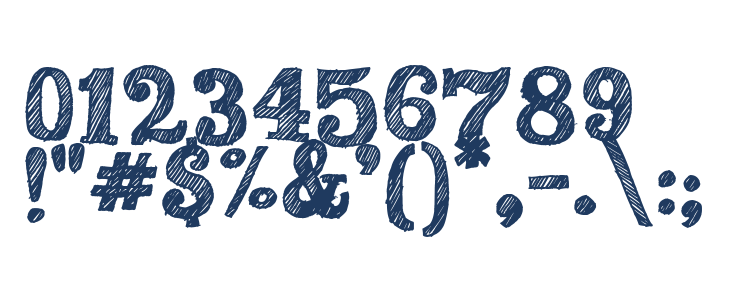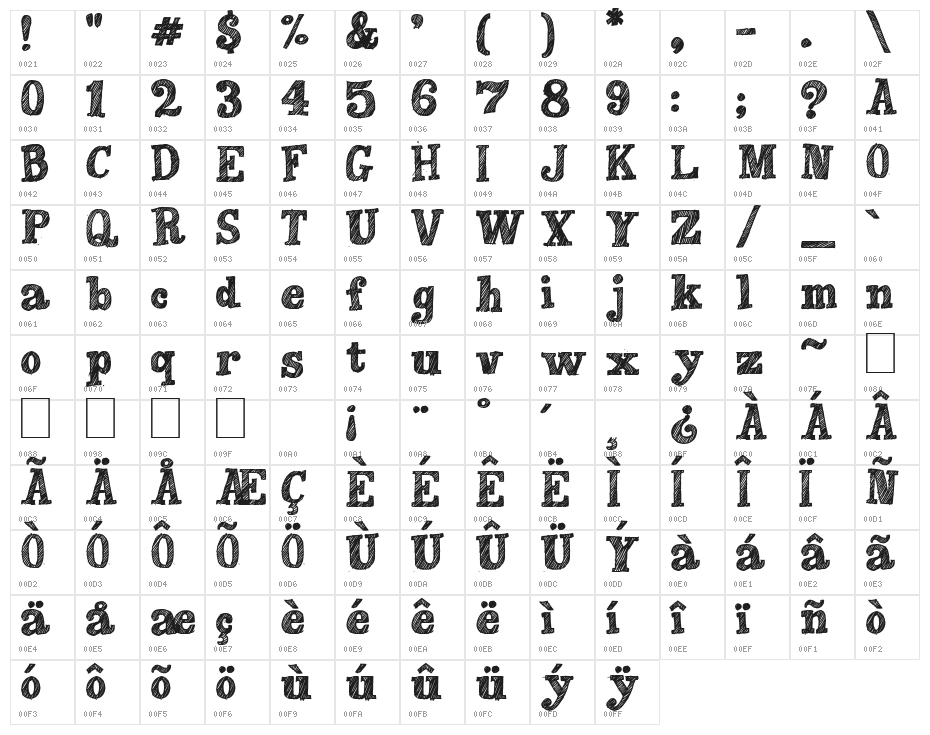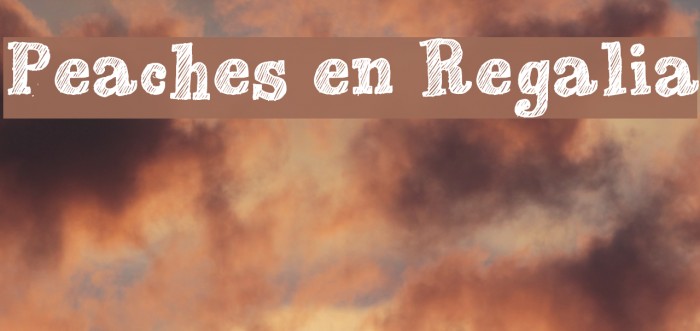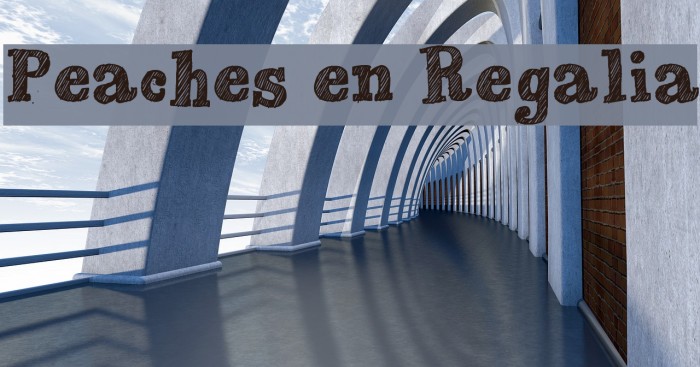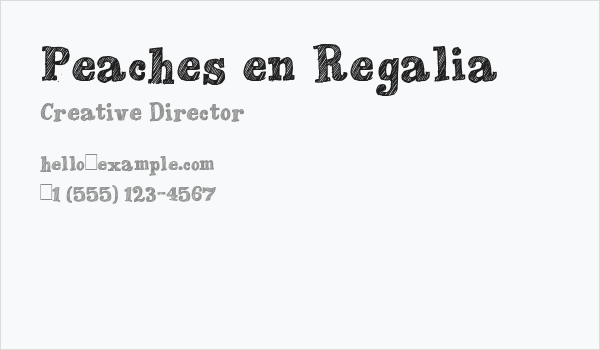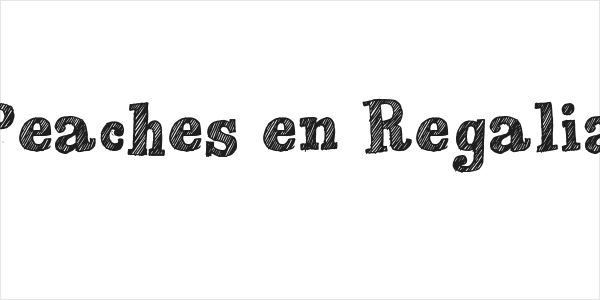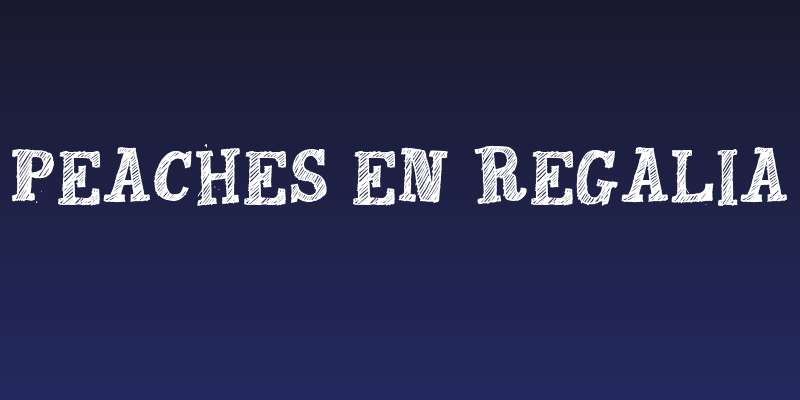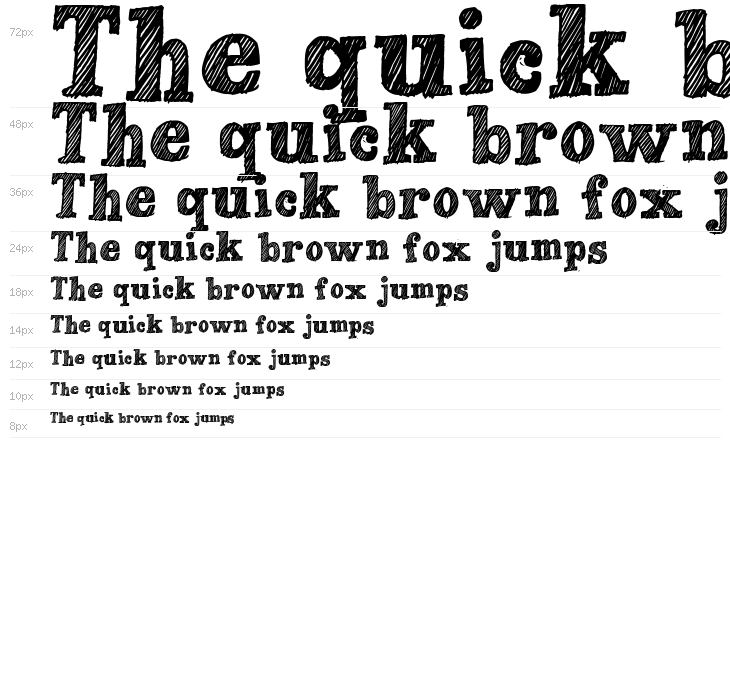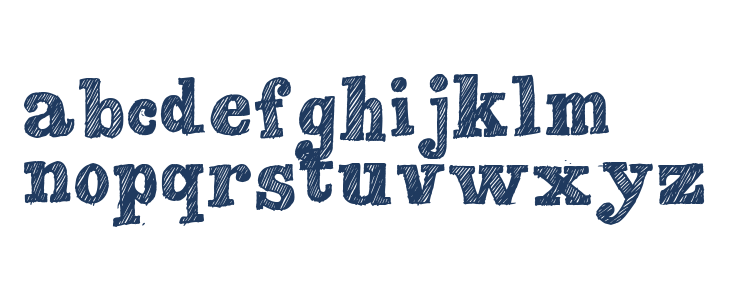
Peaches en Regalia Font
Peaches en Regalia Description
This font features a bold, textured style with a hand-drawn appearance, giving it a unique and artistic flair. The characters are heavily weighted with a distinct, rough texture that suggests a vintage, handcrafted feel. The uppercase and lowercase letters maintain a consistent design, with slightly exaggerated serifs and a playful, informal look. Numbers and special characters follow the same textured pattern, ensuring uniformity across all glyphs. The font's overall appearance is both eye-catching and expressive, making it suitable for creative and decorative applications.
| Overall Style | Vintage, Decorative |
| Proposed Projects | Ideal for posters, album covers, artistic projects, and branding that requires a creative and handcrafted touch. |